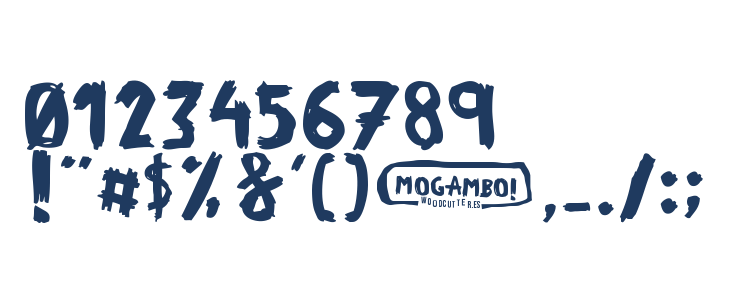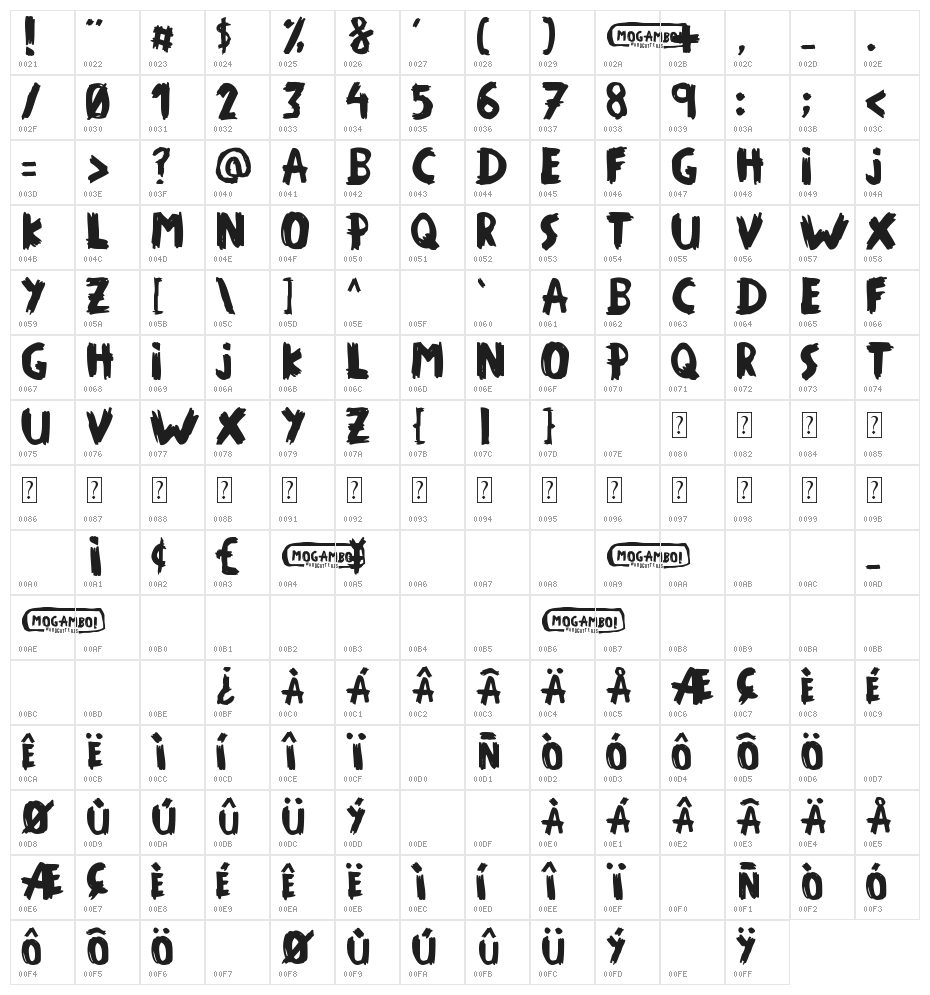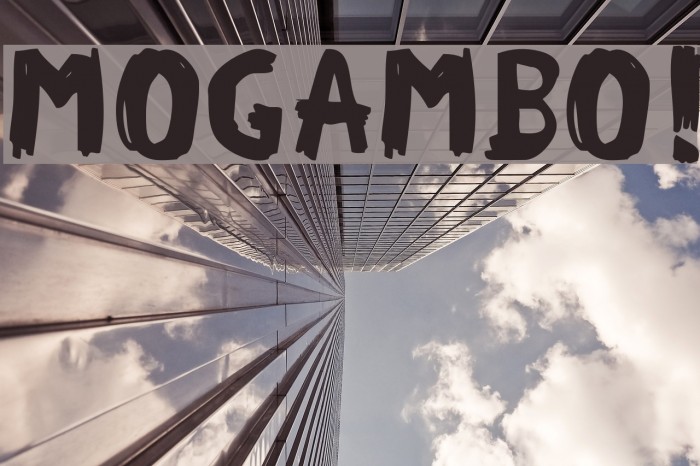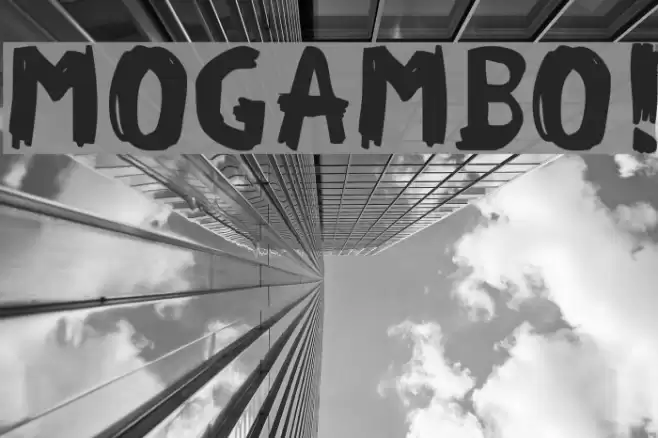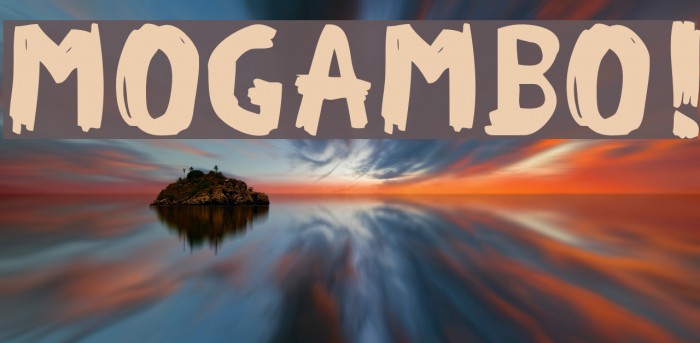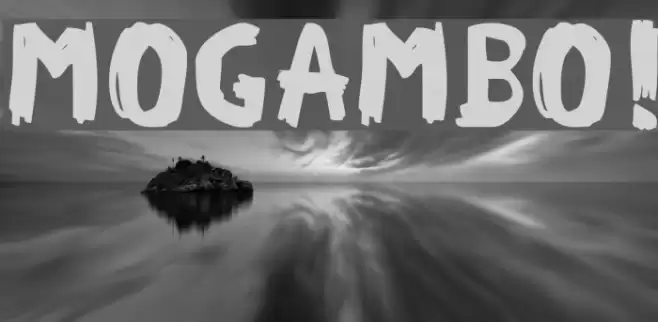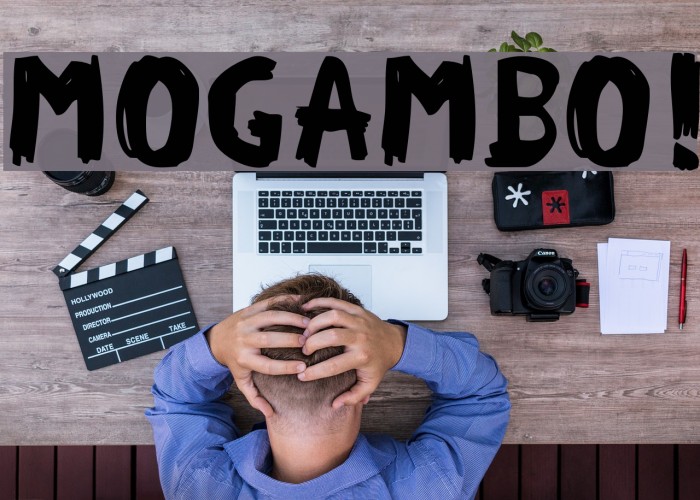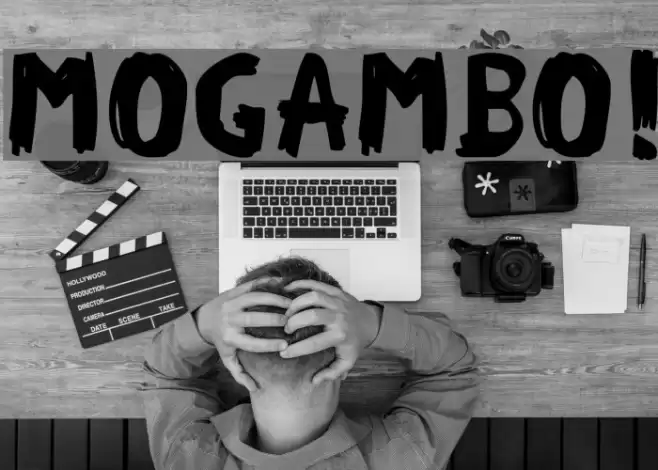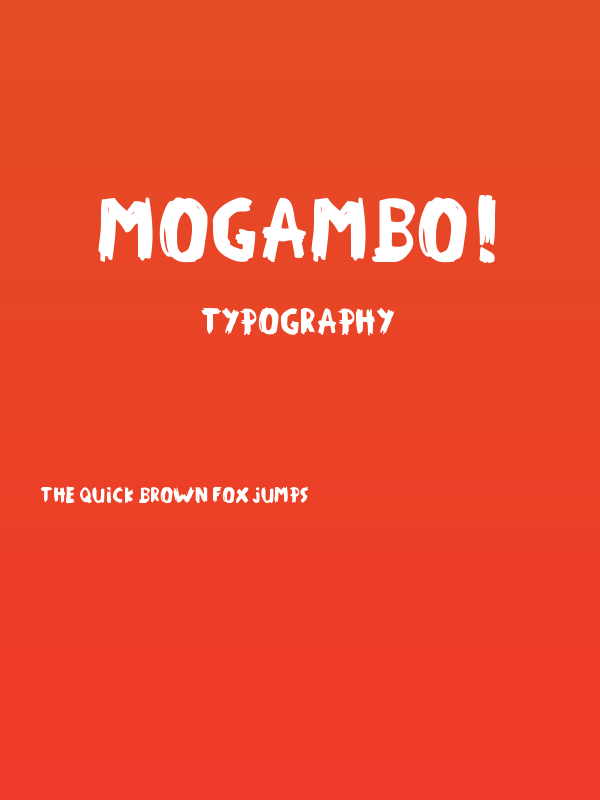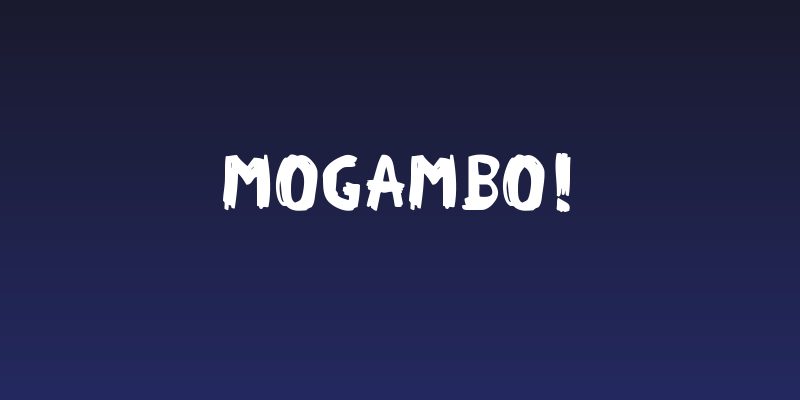
MOGAMBO! Font
MOGAMBO! Description
This font features a bold, expressive style with a hand-painted appearance. The characters are irregular and dynamic, giving a sense of movement and energy. The strokes are thick and uneven, adding to the raw, artistic feel. This font is highly decorative and stands out with its unique, edgy look. It captures attention with its boldness and is perfect for making a statement. The numbers and special characters maintain the same artistic flair, ensuring consistency across all elements.
| Proposed Projects | Ideal for poster designs, album covers, branding projects, and any creative work that requires a bold, artistic touch. |